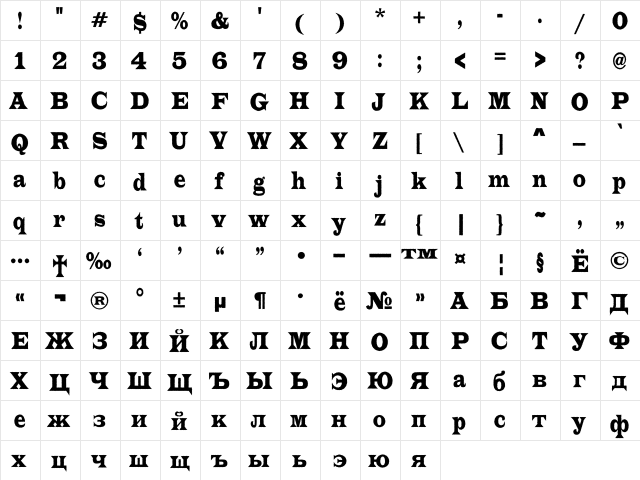
a_LatinoRgNr Regular
Design Context for a_LatinoRgNr Typeface
a_LatinoRgNr is a composed and adaptable typeface that performs quietly and consistently across a wide range of design contexts.